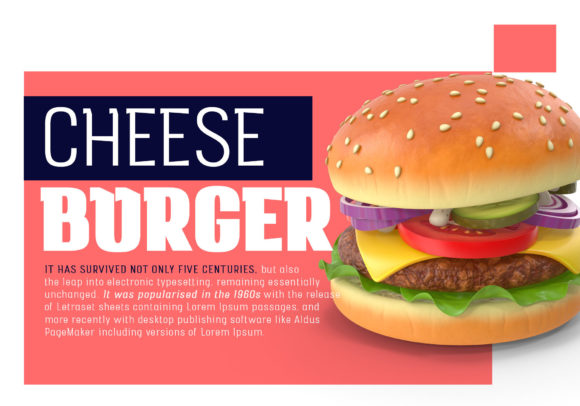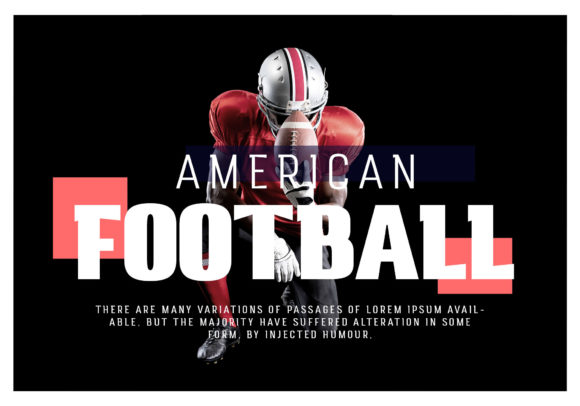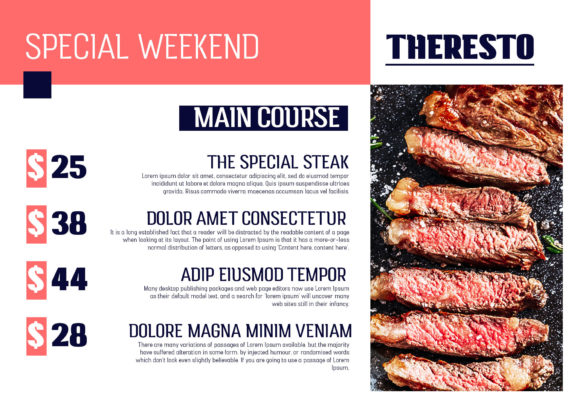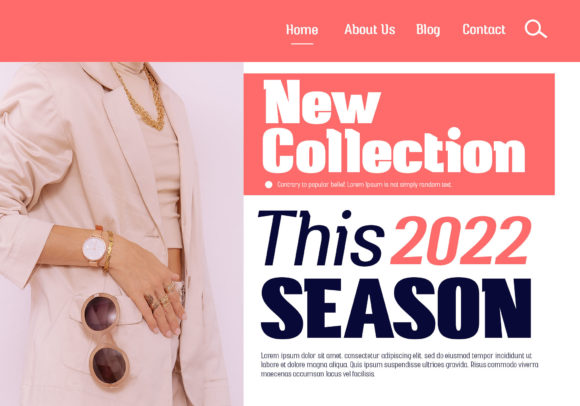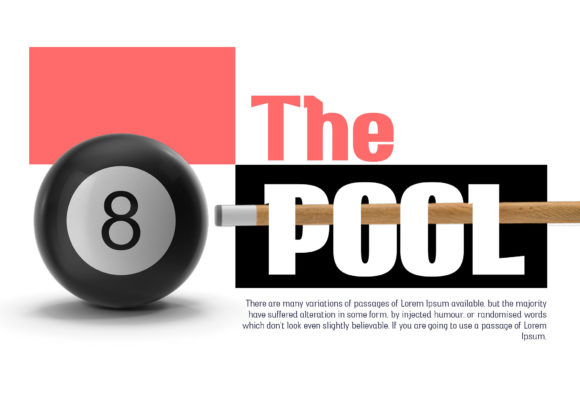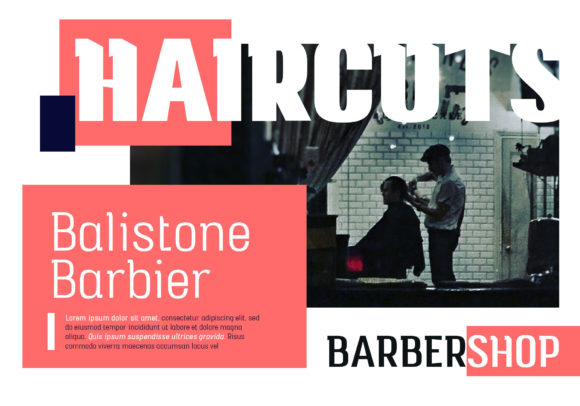
Crabs Font: Elevate Your Designs with a Touch of Elegance and Modernity
In the world of typography, fonts play a crucial role in conveying messages, expressing emotions, and creating a lasting impression. For designers and crafters, finding the perfect font that combines elegance, modernity, and uniqueness can be a daunting task. However, if you’re looking for a font that embodies these qualities, look no further than Crabs Font. In this article, we’ll explore the features, benefits, and uses of Crabs Font, and why it’s an excellent addition to your typography collection.
Introducing Crabs Font: A Slab Serif Style with a Unique Twist
Crabs Font is a stunning slab serif font that boasts a sturdy and elegant typography style. Its classic design is reminiscent of retro and modern styles, yet it has a unique and elegant feel that sets it apart from other fonts. The font’s distinctive characteristics make it an excellent choice for designers and crafters looking to add a touch of sophistication to their projects.
Key Features of Crabs Font
- Slab Serif Style: Crabs Font features a slab serif style that exudes elegance and sturdiness, making it perfect for a wide range of applications.
- Multi-Language Support: This versatile font comes with multiple language support, allowing you to use it in various projects, regardless of the language or region.
- Unique and Elegant Feel: Crabs Font has a distinctive and elegant feel that gives an extraordinary impression, making it ideal for designers and crafters looking to create something special.
Uses of Crabs Font
Crabs Font is an incredibly versatile font that can be used in a variety of projects, including:
- Sports: Use Crabs Font to create bold and eye-catching sports-related designs, such as logos, posters, and jerseys.
- Posters: Crabs Font is perfect for creating stunning posters that grab attention and convey messages with elegance and sophistication.
- Products: Add a touch of elegance to your product designs, such as packaging, labels, and branding materials.
- Logos: Create memorable and impactful logos that showcase your brand’s personality and values.
- Branding: Use Crabs Font to develop a consistent brand identity that exudes professionalism and style.
Benefits of Using Crabs Font
By incorporating Crabs Font into your typography collection, you’ll enjoy numerous benefits, including:
- Enhanced Creativity: Crabs Font’s unique and elegant feel will inspire your creativity and help you create designs that stand out.
- Versatility: With its multi-language support and slab serif style, Crabs Font can be used in a wide range of projects and applications.
- Professionalism: Crabs Font’s elegant and sturdy design ensures that your projects look professional and polished.
In conclusion, Crabs Font is an exceptional addition to any designer’s or crafter’s typography collection. Its unique blend of elegance, modernity, and classic style makes it an excellent choice for a wide range of projects. With its slab serif style, multi-language support, and versatility, Crabs Font is sure to elevate your designs and help you create something truly special. Whether you’re working on sports-related designs, posters, products, logos, or branding materials, Crabs Font is the perfect choice for designers and crafters looking to make a lasting impression.